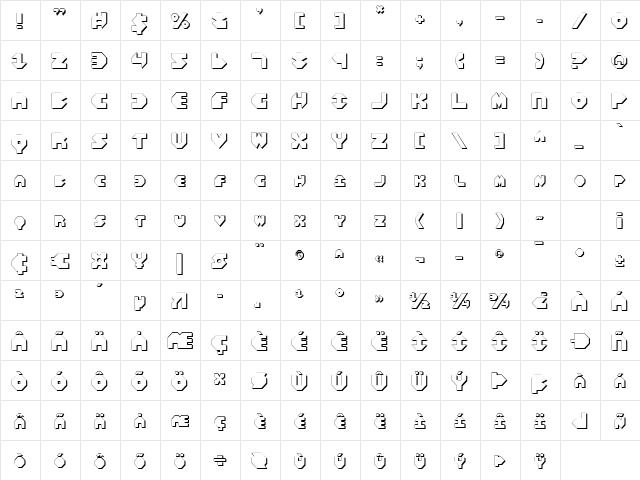
Bal-Astaral 3D 3D
| Style | 3D |
| Designer | Dan Zadorozny |
Design Context for Bal-Astaral 3D Typeface
Bal-Astaral 3D is a composed and adaptable typeface that performs quietly and consistently across a wide range of design contexts.